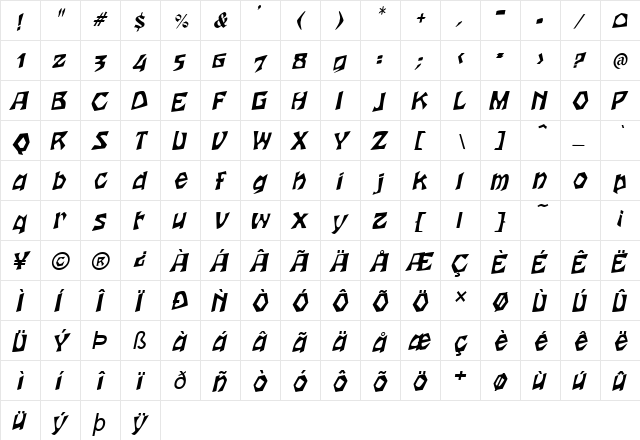
Woodcut Italic
Design Context for Woodcut Typeface
Woodcut taps into classic Western woodtype traditions — bold, characterful, and impossible to ignore. Its italic angle brings a sense of urgency and motion to the letterforms.
A natural fit for craft spirits, ranch branding, rodeo events, and Americana-inspired design work.
Font Pairing: Combine Woodcut with a simple slab or neutral sans — period-accurate companions reinforce the vintage feel without competing for attention.
Pro Tip: Use Woodcut for short, impactful bursts of text — it shines in poster headlines and product names rather than extended copy.